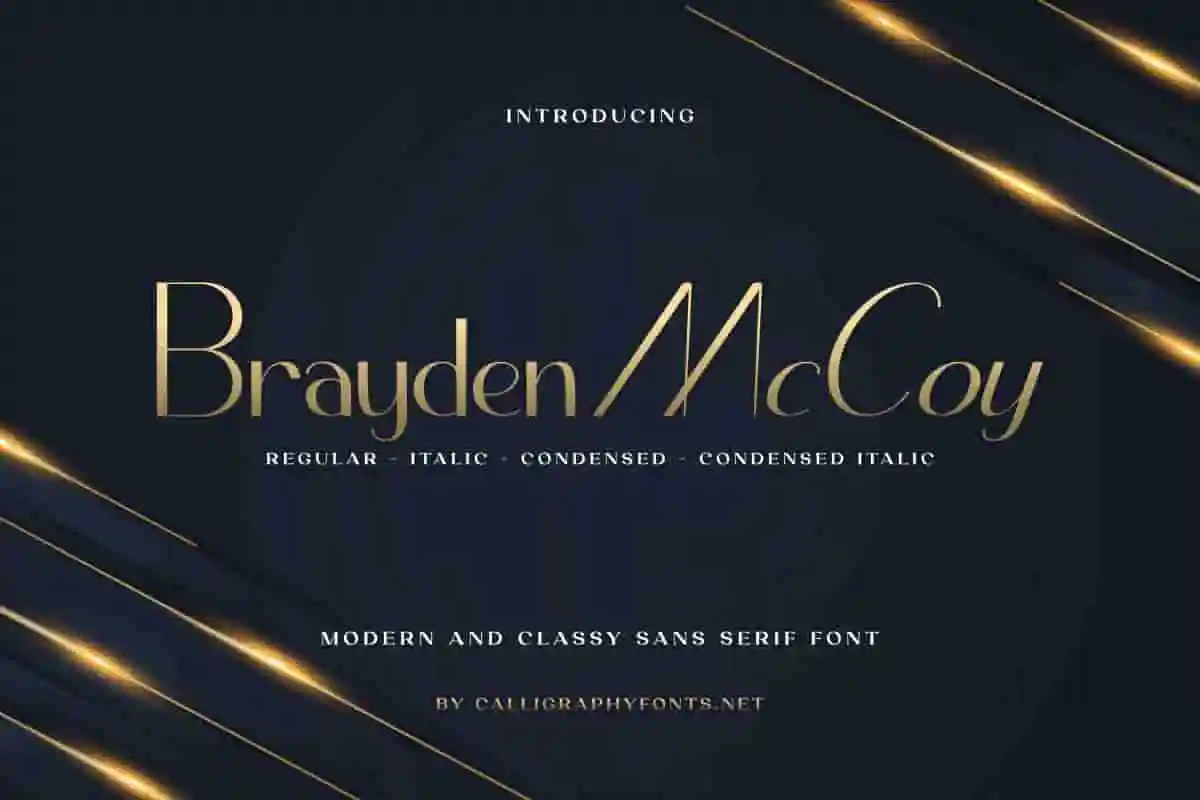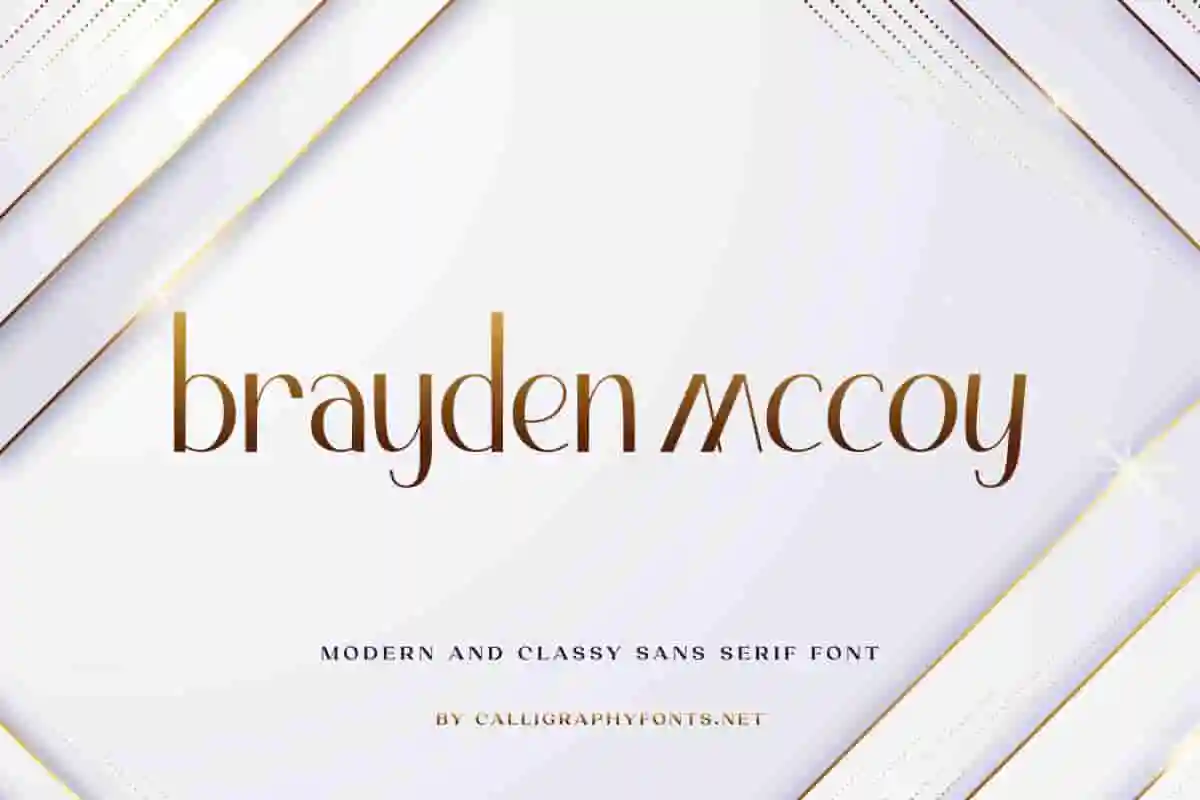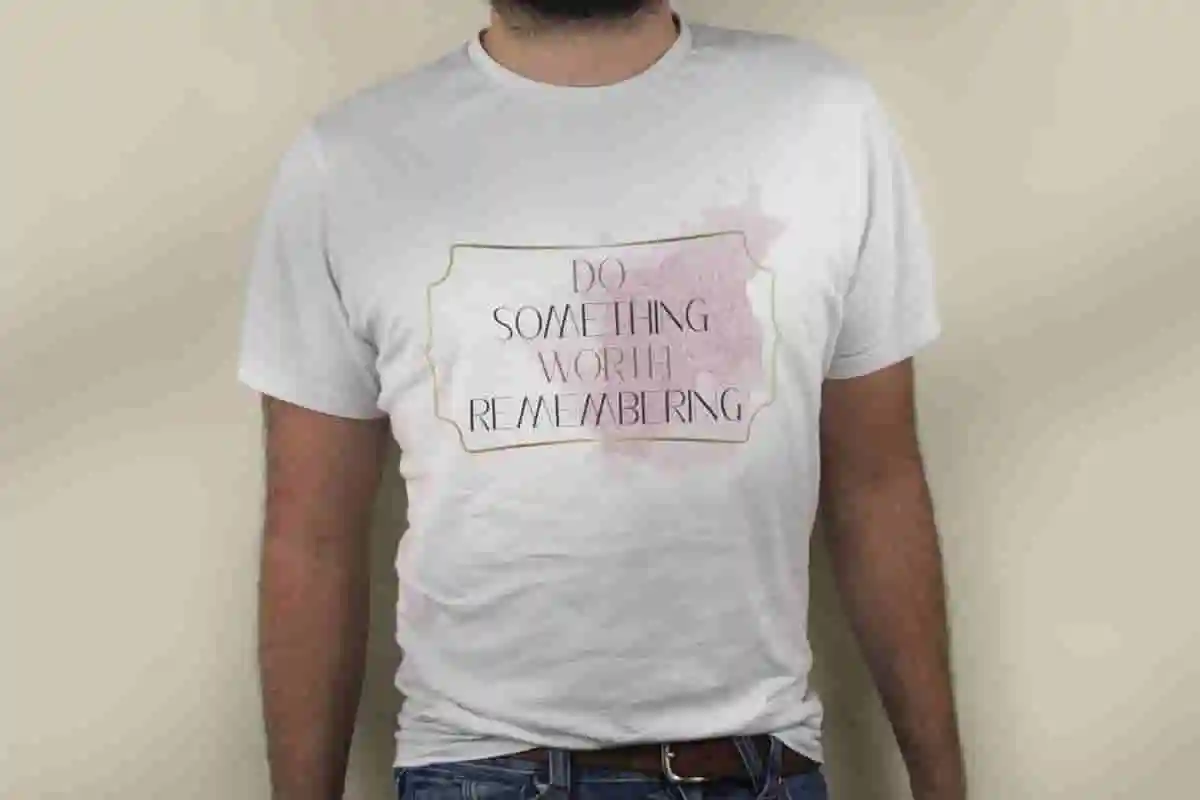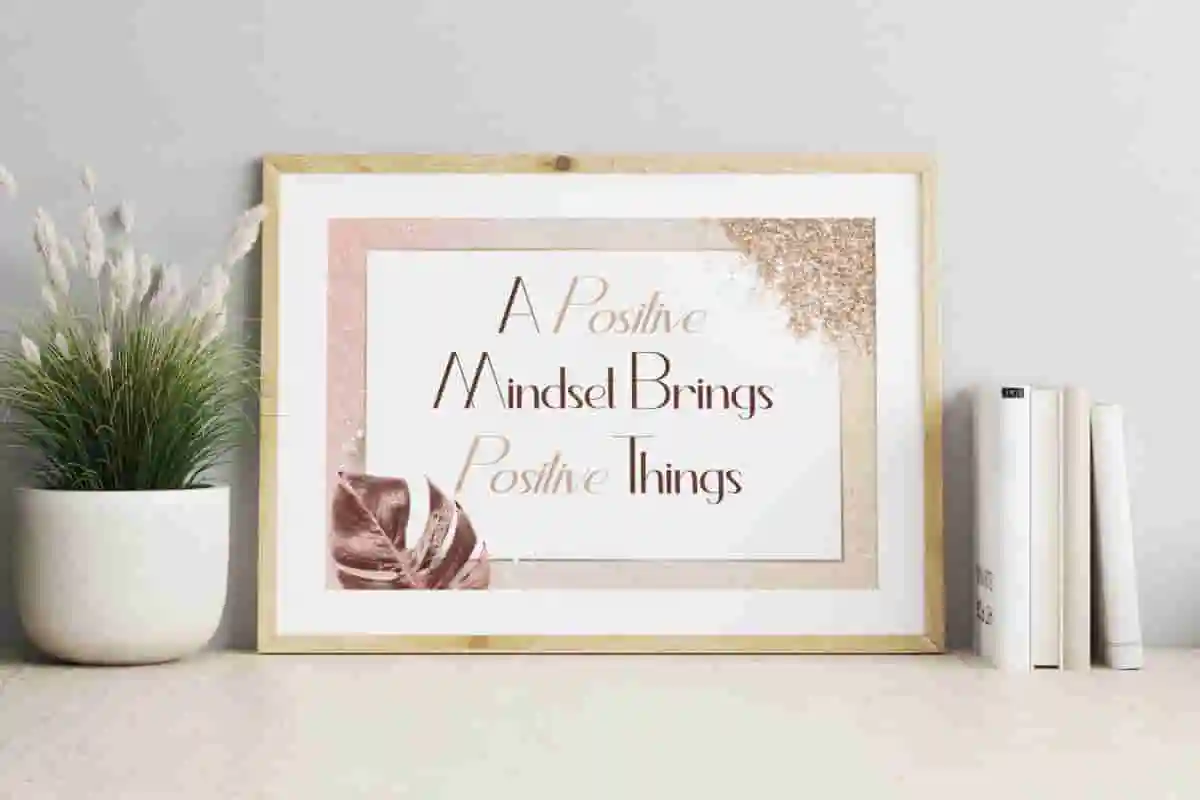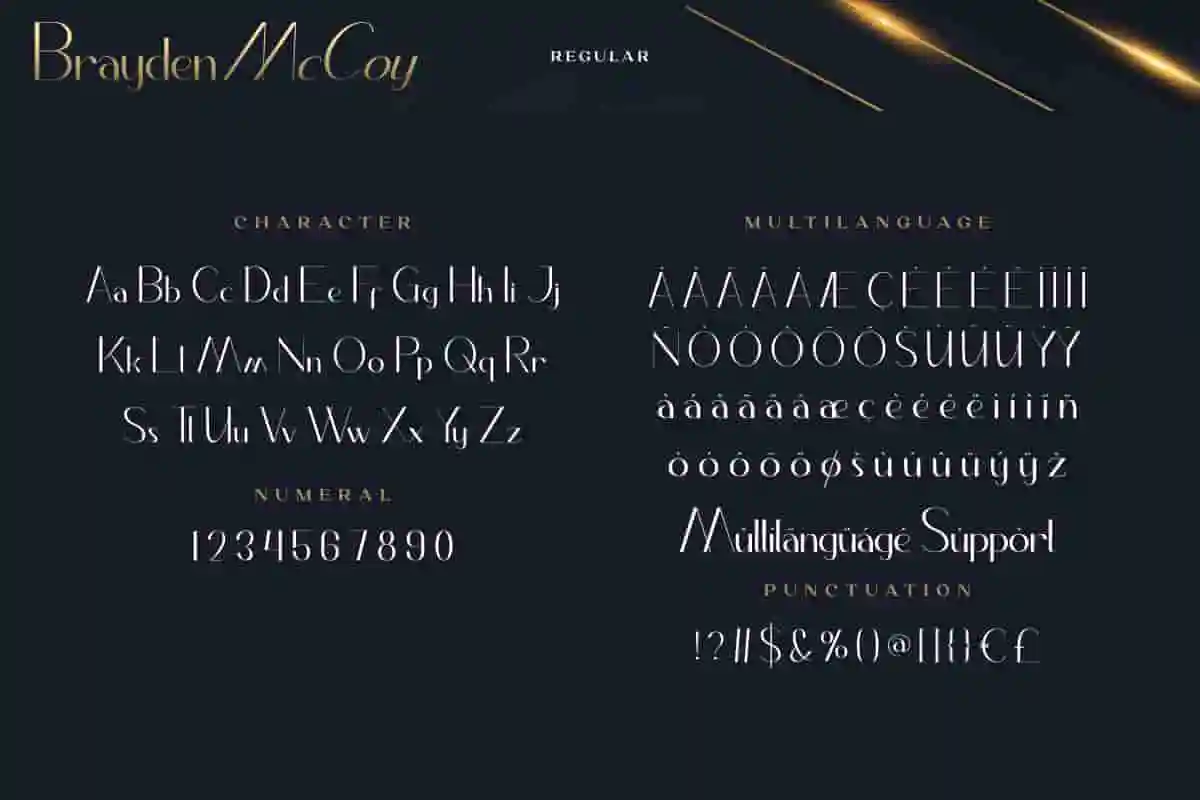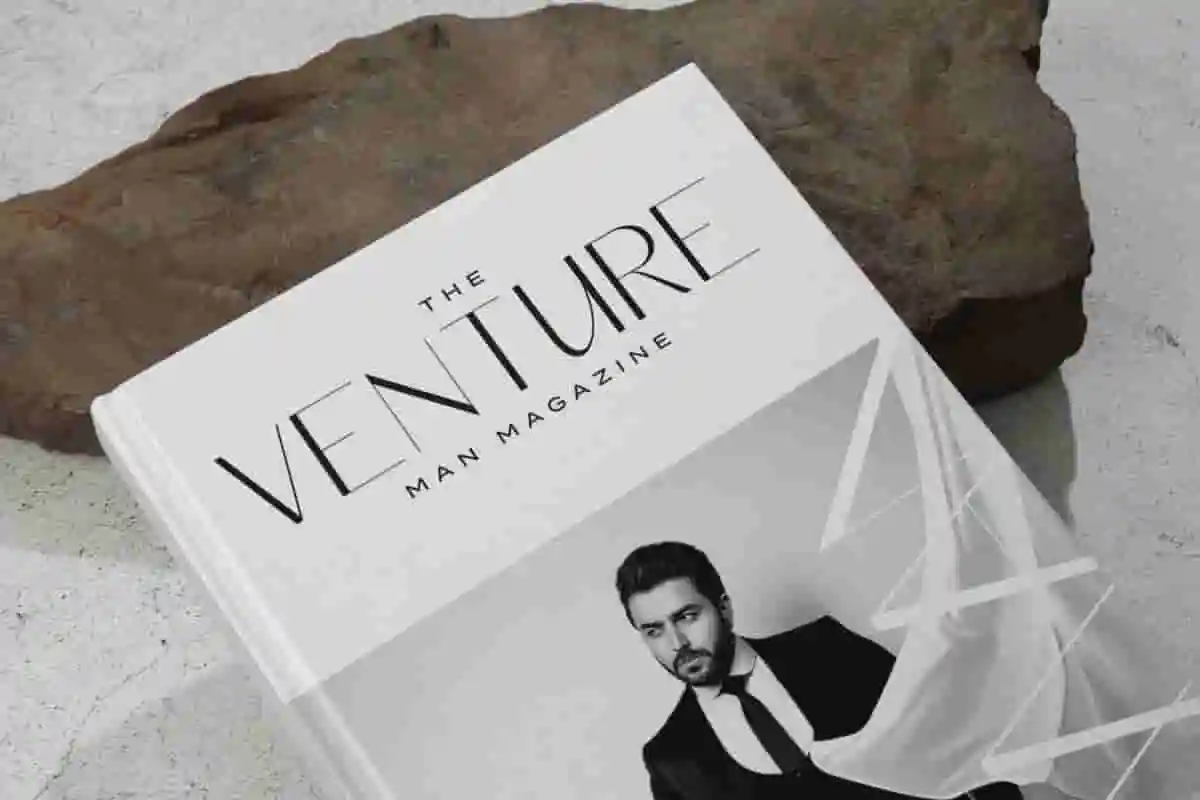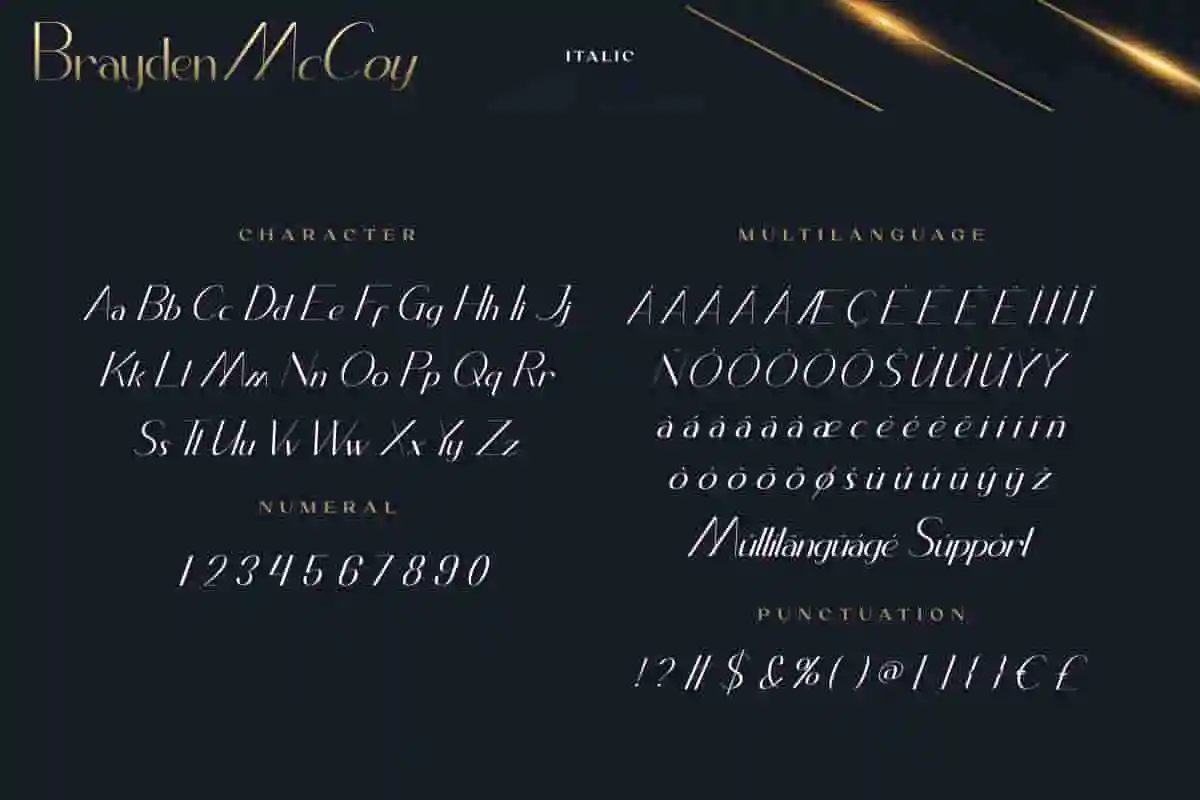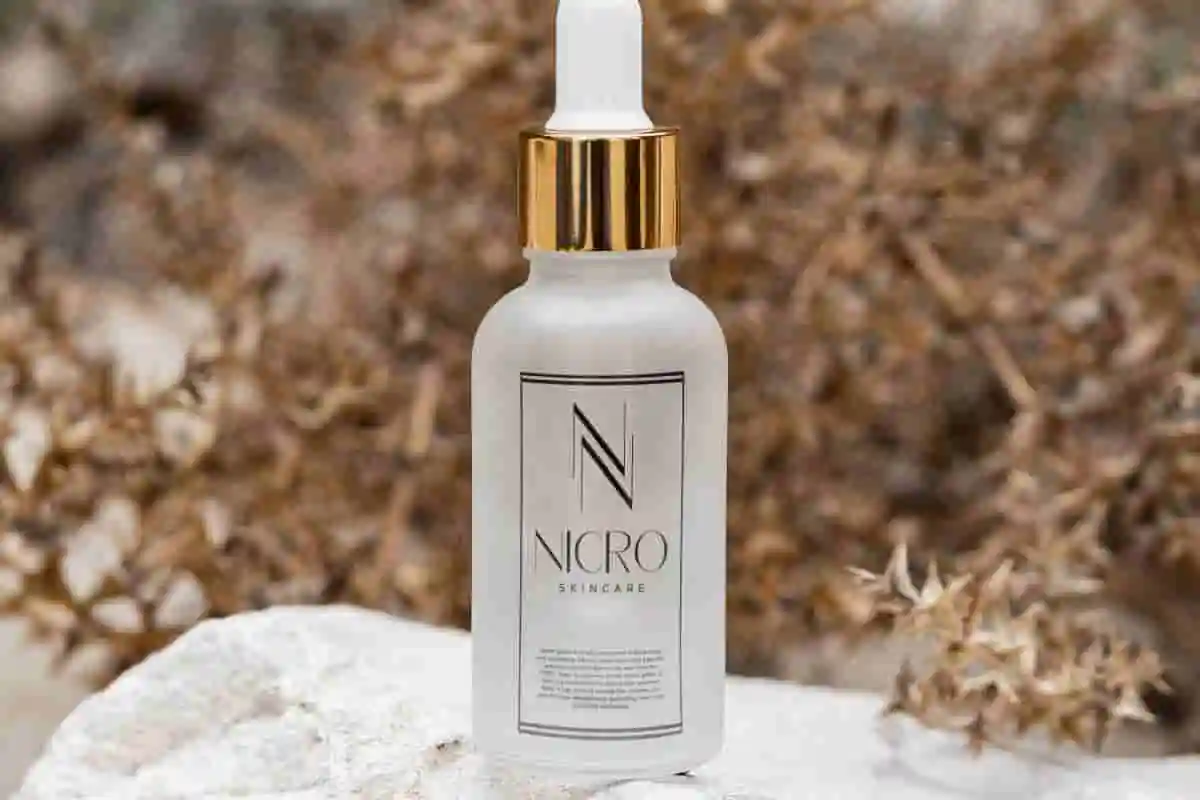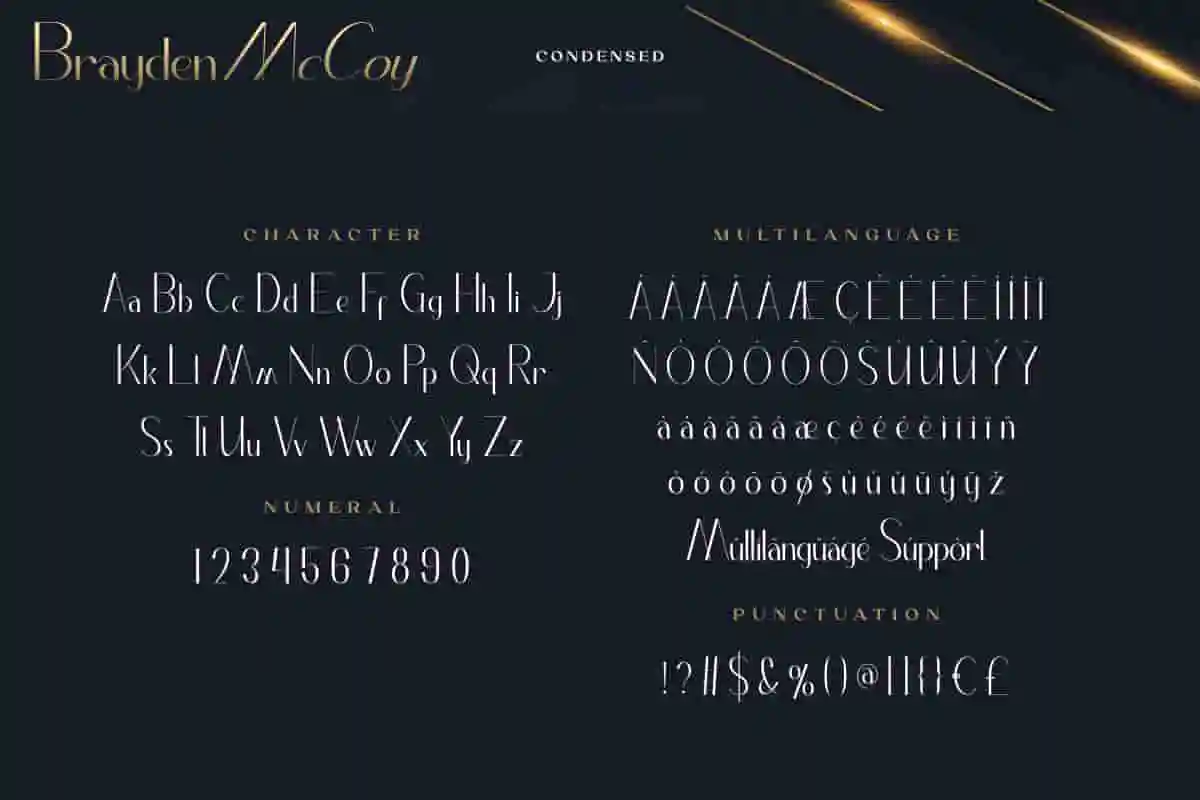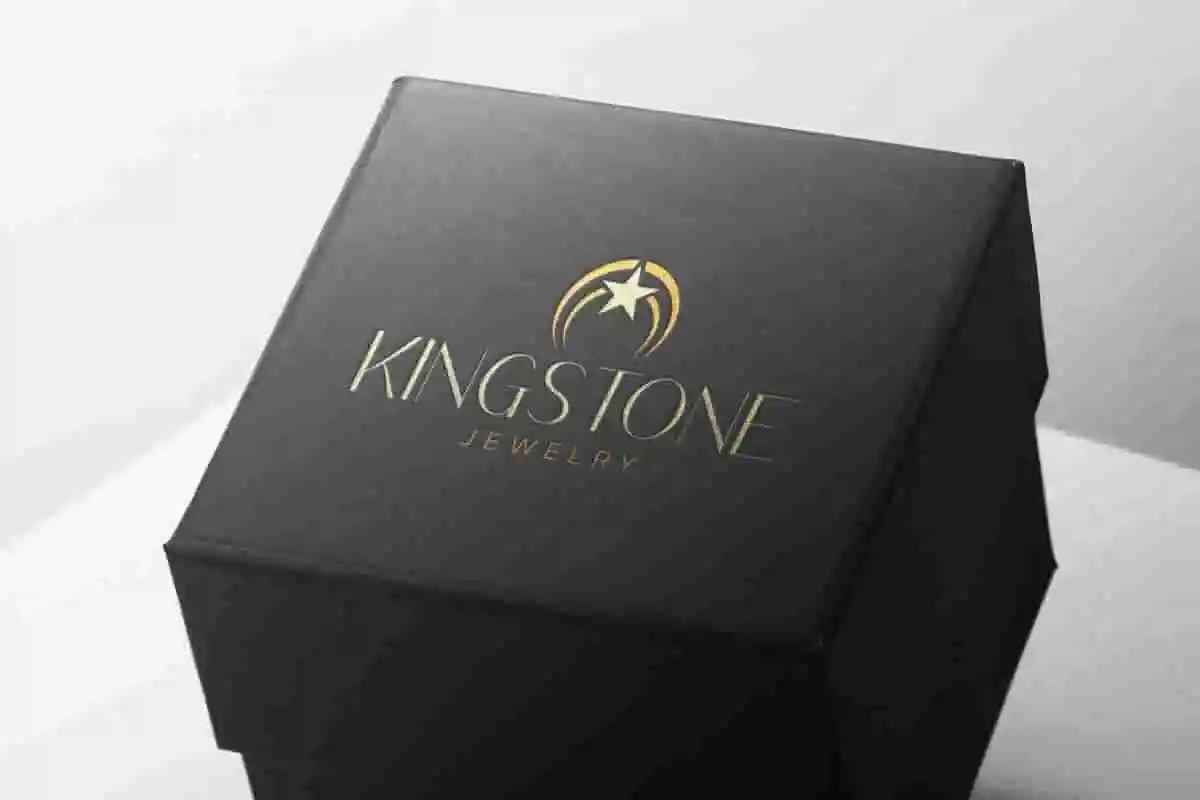
Brayden McCoy Font
Brayden Mccoy Font is a classy sans serif font with four exclusive packaged. This is perfect for beauty clinic, clothing brand, jewelry, magazine catalog, quotes, and anything that needs a modern look.
Brayden McCoy Font is a modern sans serif font packed in four classy styles : Regular, Italic, Condensed, and Condensed Italic, exclusively created by CalligraphyFonts. It will be suitable for any industry, such as accessories, beauty clinic, clothing brand, handicrafts, jewelry, publishing, real estate, restaurant, writer, and anything that requires a look that radiates elegance.
If you’re looking for a font that blends elegance, style, and versatility, the Brayden McCoy Font is the perfect choice. This modern script typeface is designed with smooth curves, graceful strokes, and a natural handwritten feel that instantly adds personality to any project.
Whether you’re working on wedding invitations, logos, product packaging, social media posts, or branding projects, Brayden McCoy Font delivers timeless beauty. Its flowing characters create a warm and sophisticated impression, making it suitable for both personal and professional use.
The Brayden McCoy script font is not just stylish, but also easy to read and adaptable to different design themes. From minimalist aesthetics to bold and luxurious concepts, it enhances your creativity while keeping your work polished and professional.
With its handcrafted details, this font is ideal for stationery, quotes, greeting cards, blog headers, advertising, and more. Designers love it because it saves time while still achieving a refined, custom look.
Brayden McCoy Sans Serif Font looks easy to read which will make it easier for users to express its attractive design, including: body text, frame art, header, jewelry box, magazine catalog, screen printing, label, product packaging, and would be great to pair with script typeface.
Brayden McCoy Sans Serif Font comes with a full set of Uppercase and Lowercase Basic Characters, Number, a large range of Punctuation and Symbol, and also supports multilingual characters. Ready to use both on Windows machine or Mac with simple installations. It’s tested to work well in the Adobe Apps (Illustrator, Adobe InDesign, Adobe Photoshop) CorelDraw, and others. PUA Encode Characters means you can access all the glyphs and other characters easily – Fully accessible without additional design software.